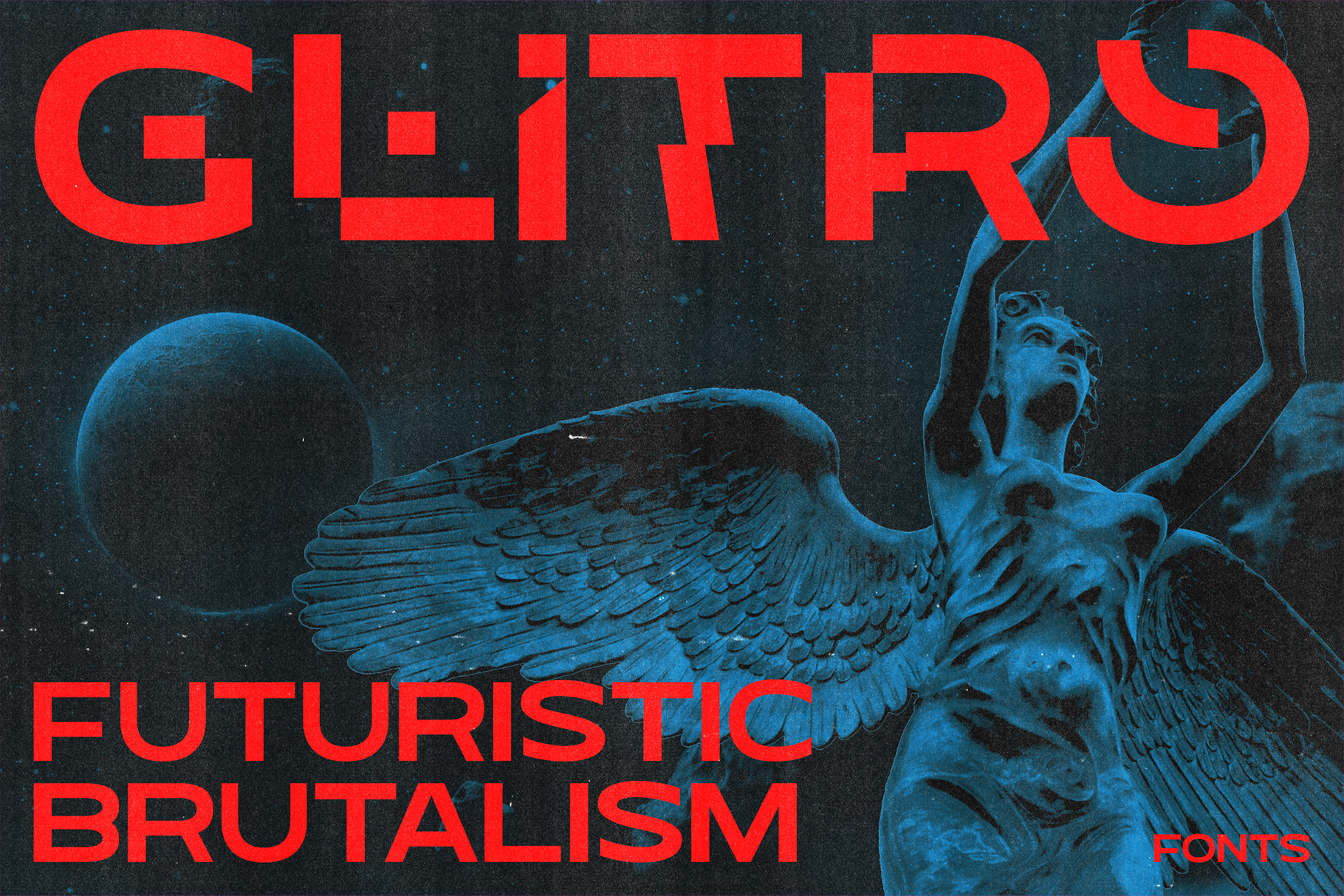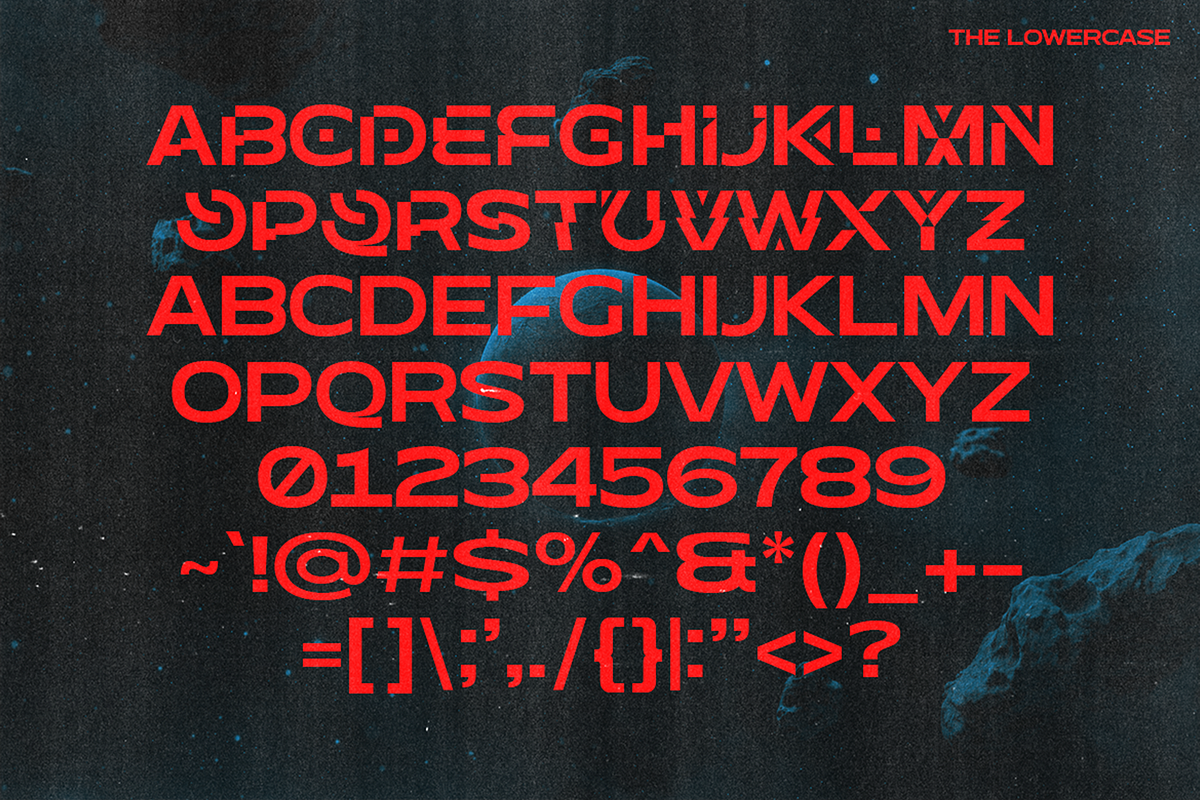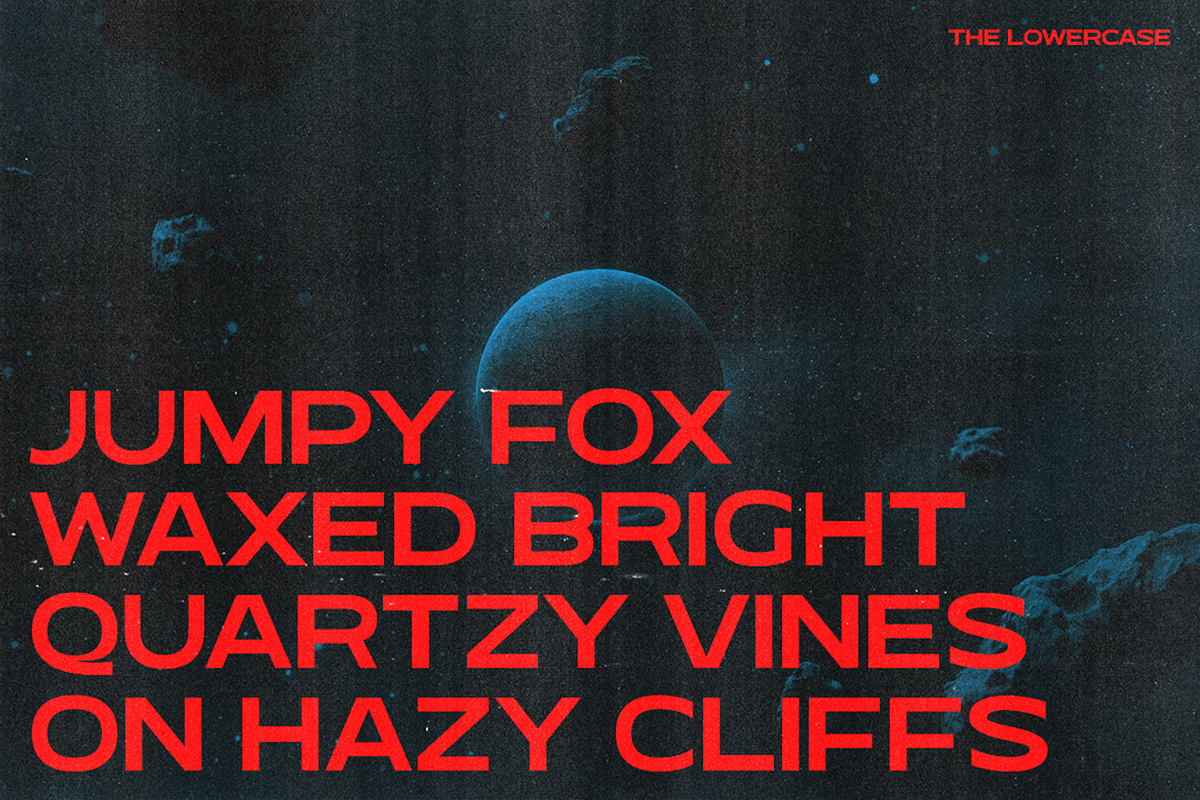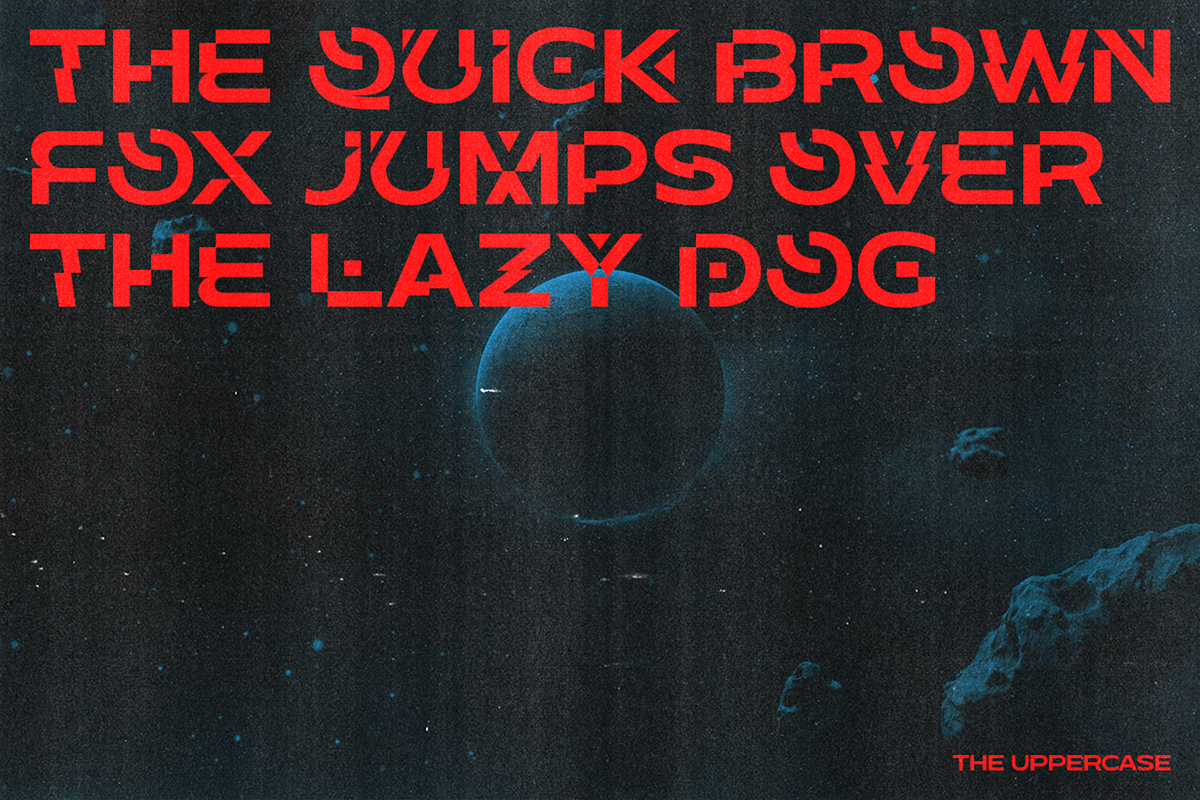
Glitro - Futuristic Glitch Fonts
Glitro - The Glitchy Future Font Is Here!
Enter the world of digital chaos with Glitro, your new go-to font for glitch-inspired designs. Whether you're creating Cyberpunk visuals, tech branding, or experimental graphics, Glitro brings the glitchy, futuristic vibe straight to your designs—no editing required!
Why Choose Glitro?
Authentic Glitch Aesthetic: Every letter is crafted with built-in glitches to replicate the look of a video error in motion. Futuristic Flair: Inspired by Cyberpunk, it’s perfect for posters, gaming titles, or tech branding. Save Time: Forget manual editing—Glitro does the glitch work for you! Take your designs to the next level with Glitro. Get it now and make your visuals stand out in the digital era.